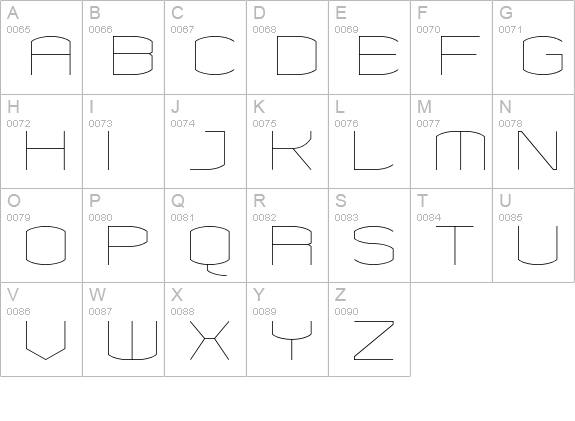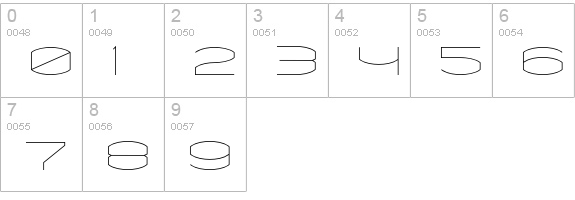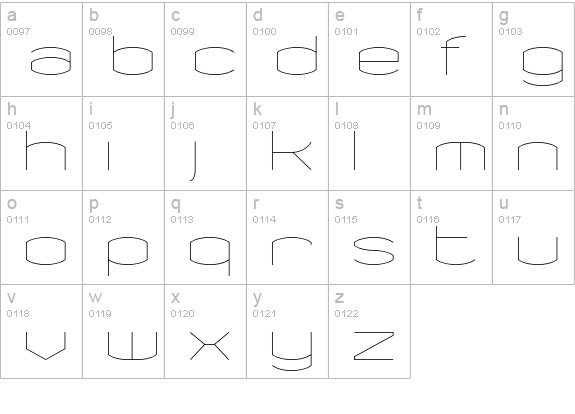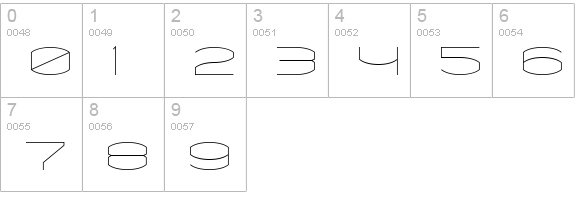
Chord-Fine font is a modern and sleek typeface that exudes elegance and sophistication. Its clean lines and geometric shapes make it perfect for a variety of design projects, from branding to editorial layouts. The font strikes the perfect balance between professionalism and creativity, making it a versatile choice for both digital and print applications. Chord-Fine font is available for free download at FontsMarket.com, where you can easily access this beautifully crafted typeface to enhance your design projects. Whether you're working on a website, poster, or logo, Chord-Fine font will add a touch of refinement and style to your work. Don't miss out on the opportunity to elevate your designs with this stunning font that is both modern and timeless. Download Chord-Fine font today and take your design projects to the next level.